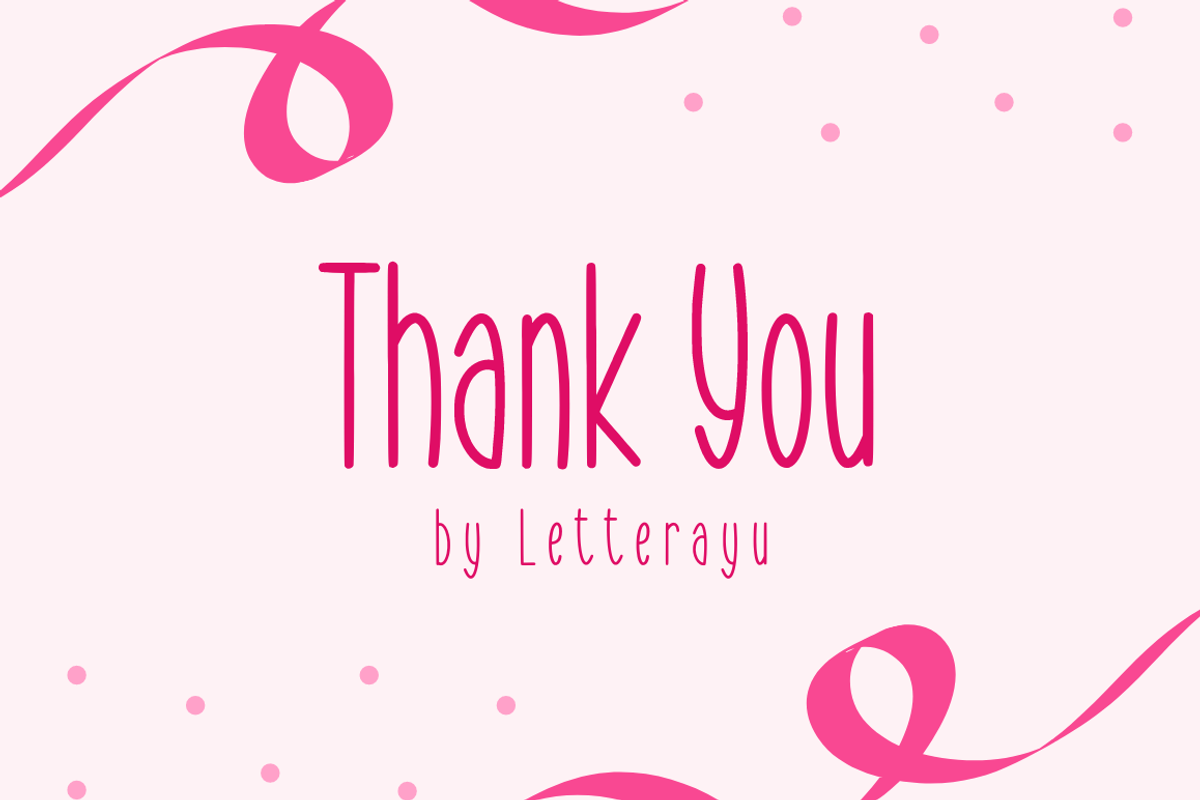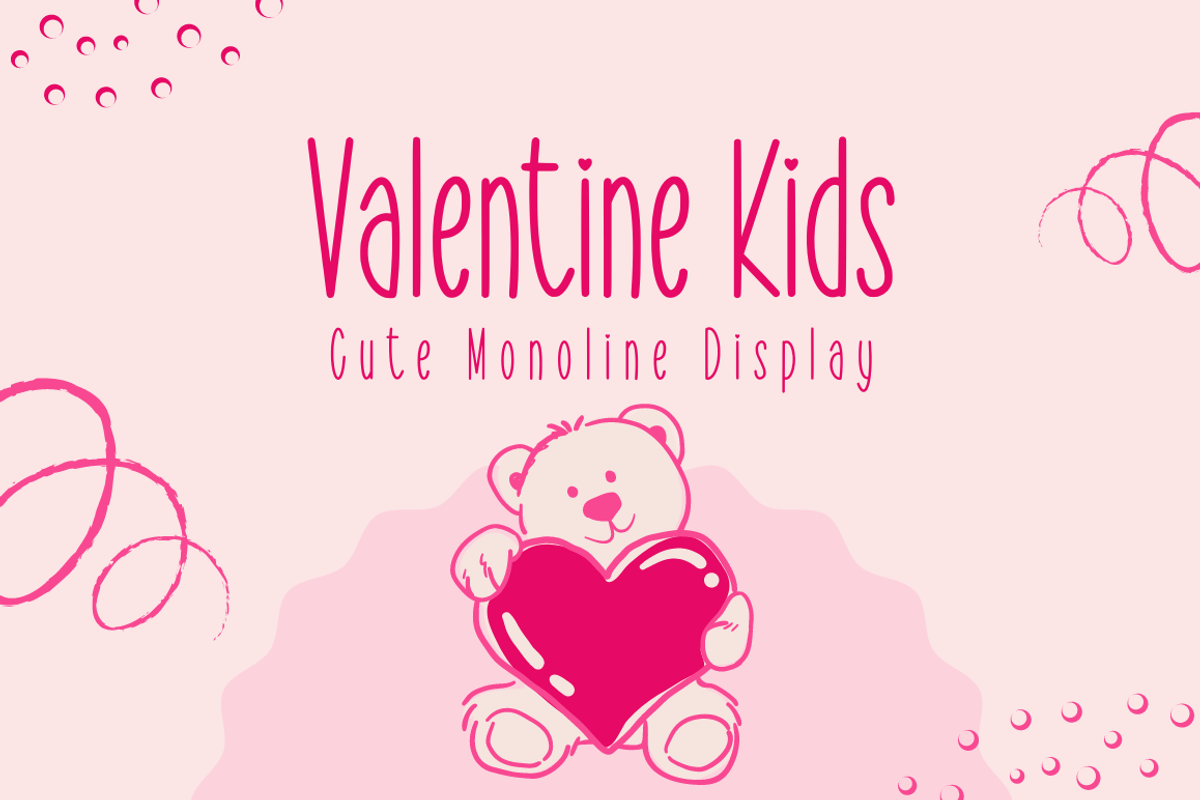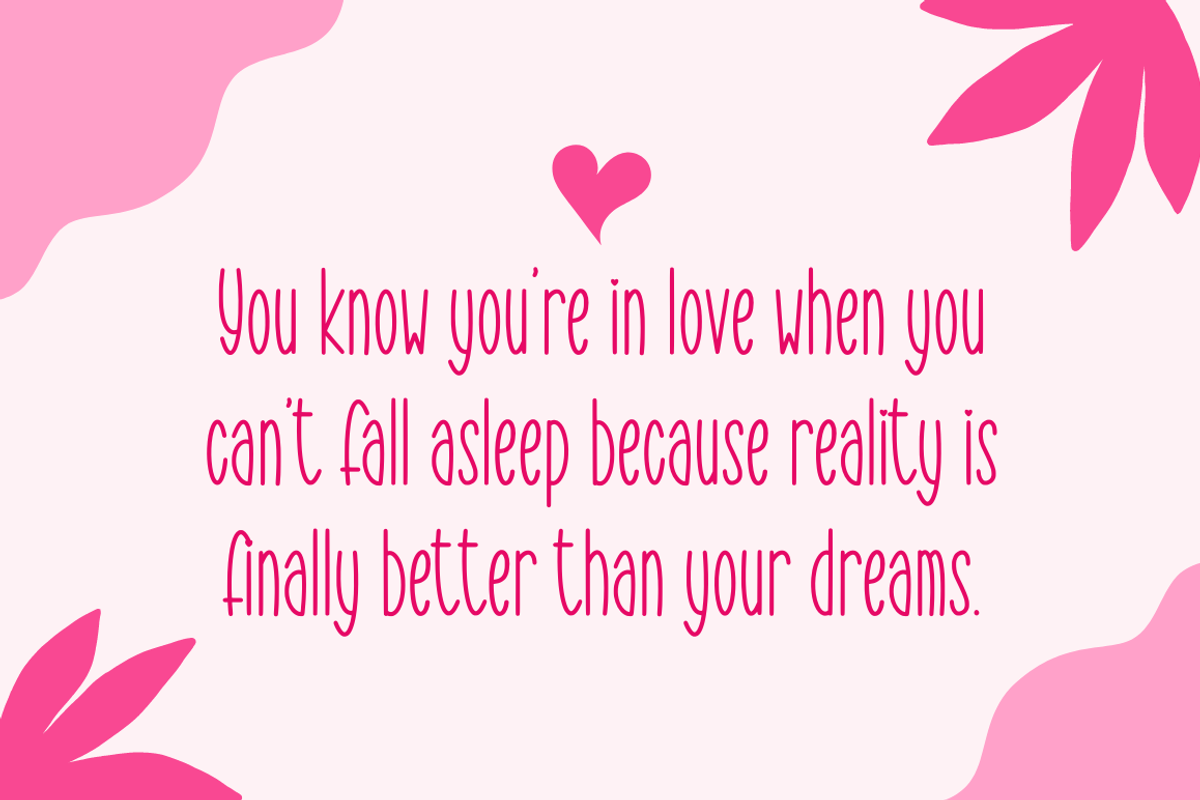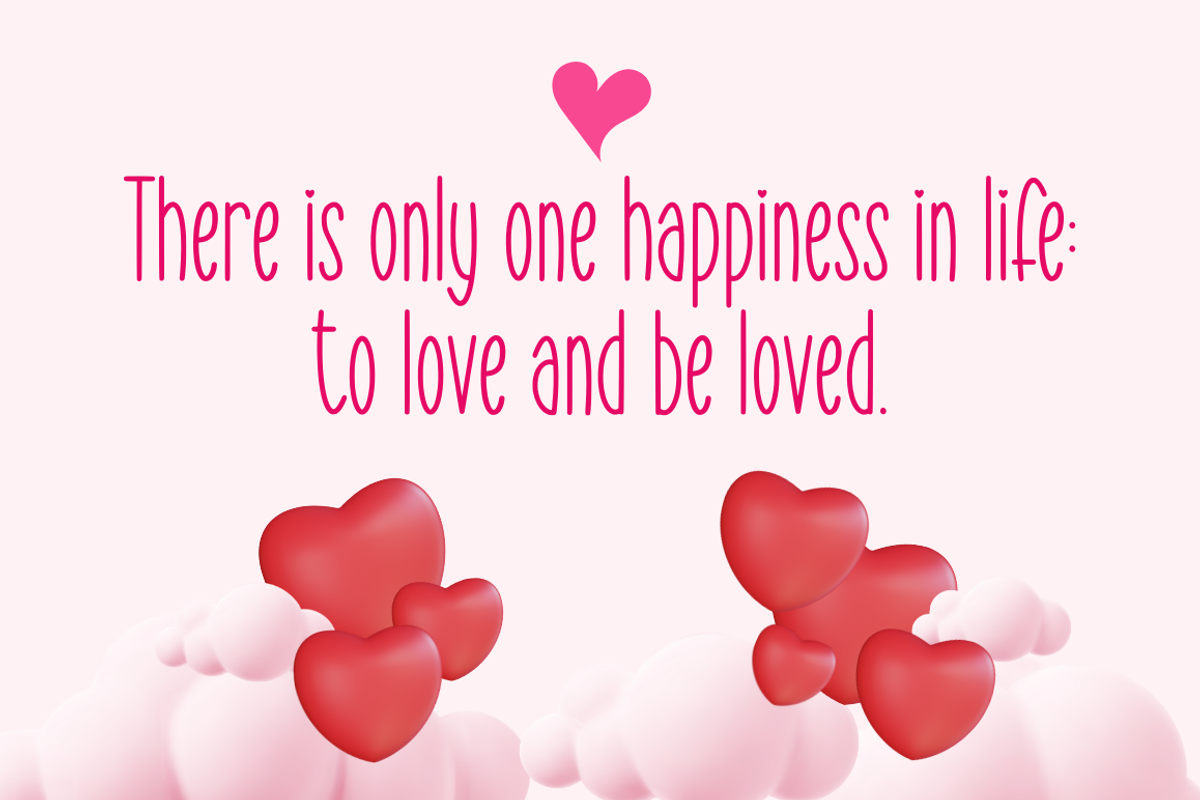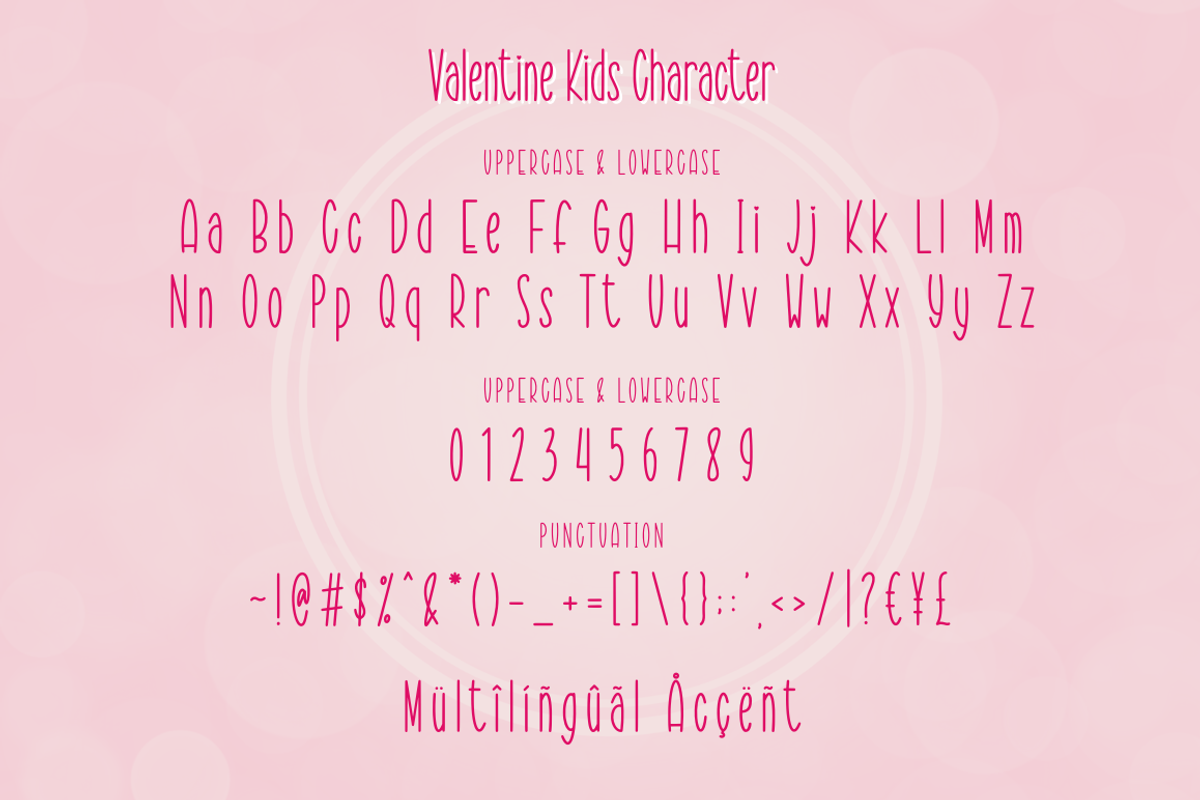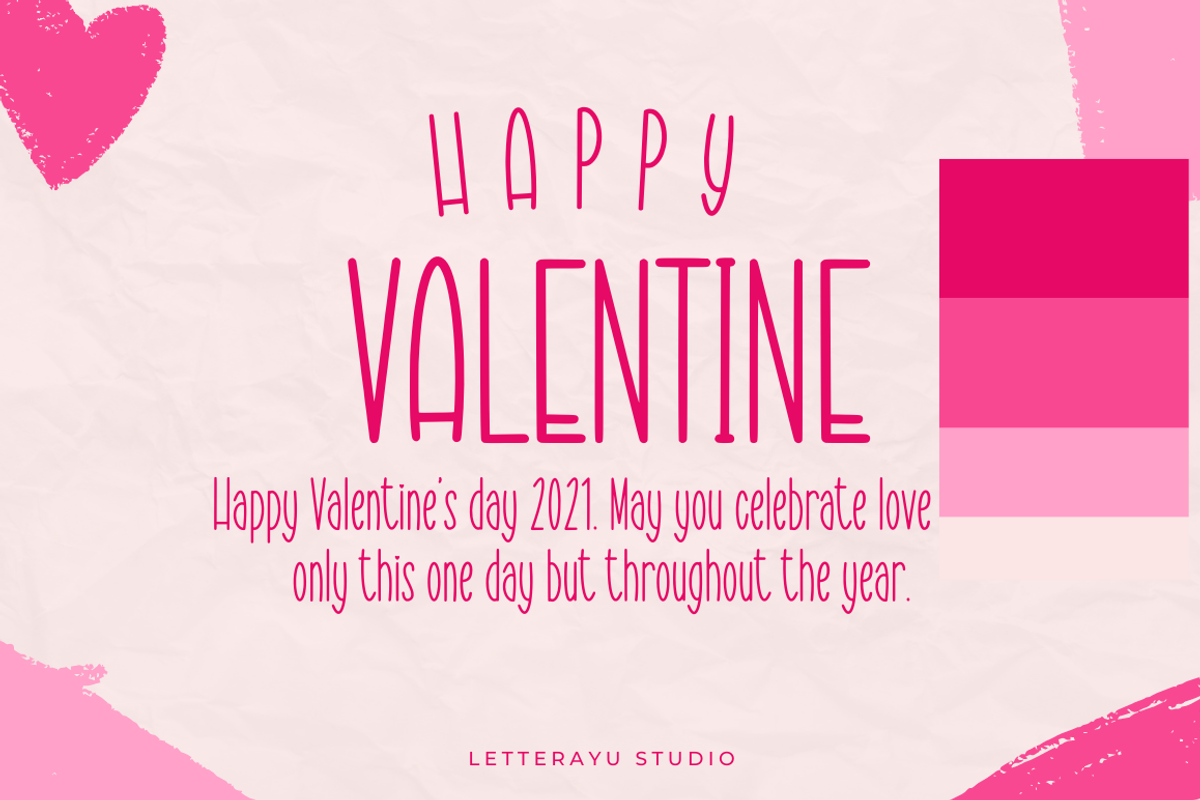
Valentine Kids - Cute Playful Font
Valentine Kids is a Playful Monoline Display font that will make your designs look unique and fun. It's perfect for labels, quotes, posters, DIY projects, branding, packaging, greeting cards, websites, photography overlays, signs, window art, scrapbooking, tags and so much more!
- Multilingual Accent